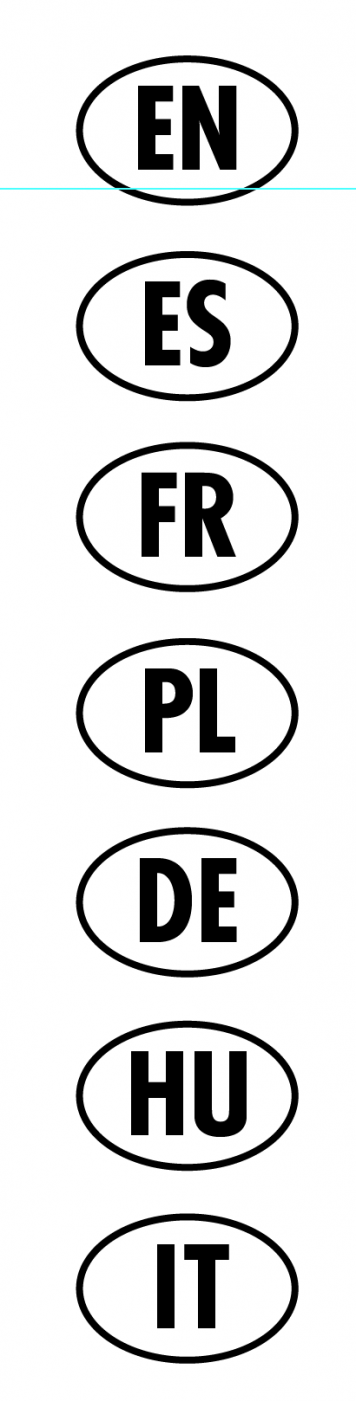
Whats the font that has country roundalls?
Whats the font that looks like the screenshot? Im sure I've used a font to produce this somehwere I once worked but can't remember. Thanking you in advance!
Thanks although I'm not looking for the name of the font used, there is a font that uses these type of glpyhs, so for example A would be EN in an oval, B could be FR in an oval and so on.